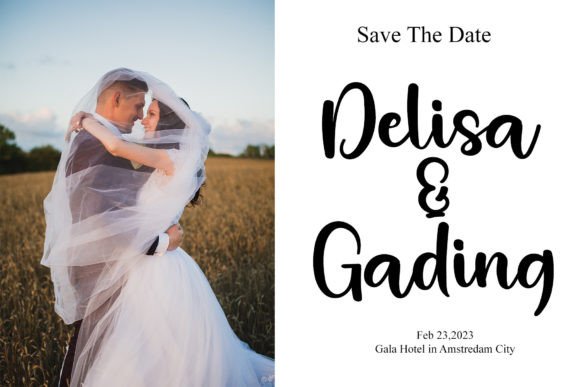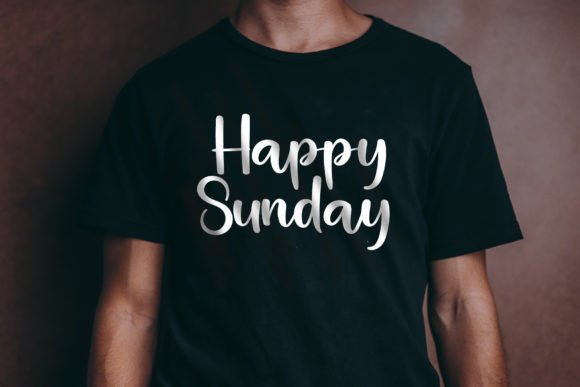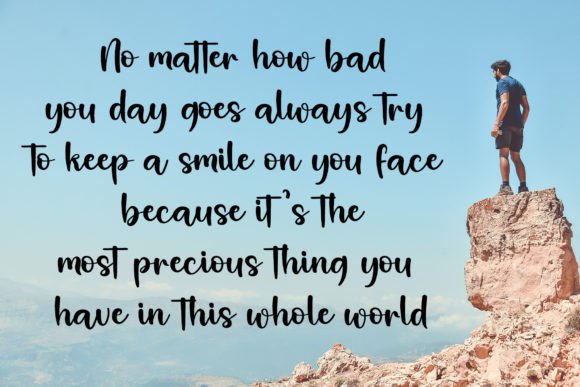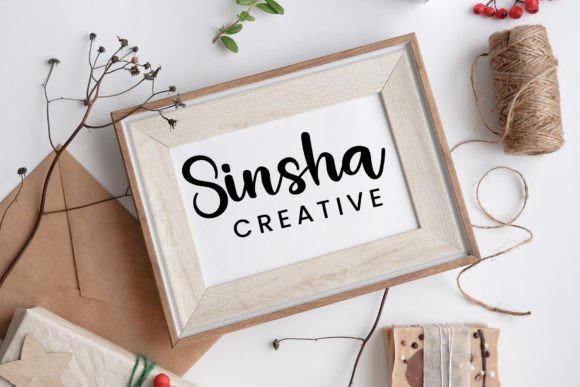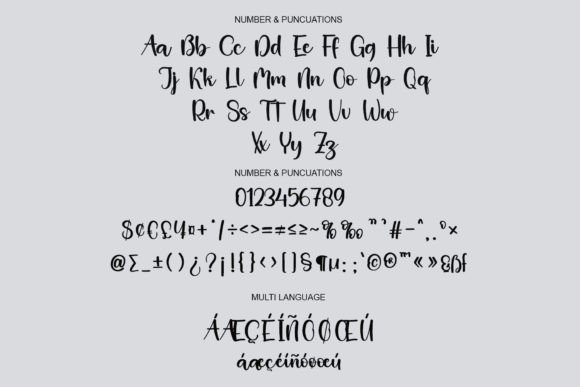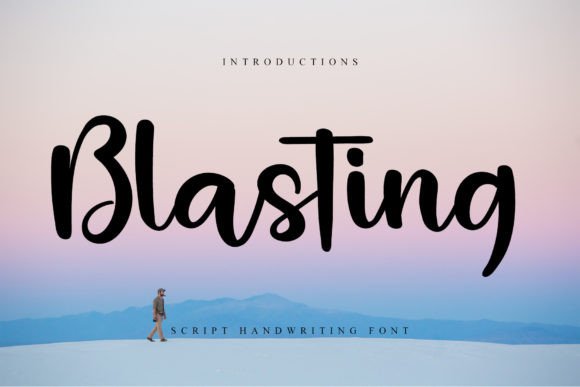
The Blasting Font: A Simple yet Powerful Design Companion
Have you ever been in the middle of a design project, and suddenly, you just can’t seem to find the right font? I recall a particularly frustrating experience when I was working on a greeting card design for a client’s birthday. The design was almost complete, but the font I was using just wasn’t cutting it. The client wanted something simple, yet elegant, and I was stuck. That’s when I stumbled upon the Blasting font, and it completely transformed my design.
A Personal Review of Blasting Font
I’m excited to share my honest review of the Blasting font, and I’ll be covering what I love about it, as well as some minor quirks I’ve encountered.
What I Love About Blasting Font
• ✨ Simple and handwritten: The Blasting font has a beautiful, effortless feel to it that’s perfect for adding a personal touch to your designs.
• ✅ Versatile: This font can be used for a wide range of projects, from greeting cards to headlines, and even body text.
• 🎨 Natural feel: The Blasting font has a unique, organic quality that gives your designs a friendly, approachable vibe.
While the Blasting font is an excellent choice for many projects, there are a few minor quirks to be aware of:
• ⚠️ Limited character set: The Blasting font might not have all the characters or glyphs you need for more complex designs.
• 🤔 Not ideal for body text: While the font is beautiful, it’s not the best choice for long blocks of body text due to its handwritten nature.
The Designer Inspiration Behind Blasting Font
The Blasting font was designed with simplicity and versatility in mind. The creator aimed to craft a font that would be easy to read and beautiful to look at, with a natural feel that’s perfect for a wide range of design projects. Although the designer’s background is unclear, it’s evident that they drew inspiration from classic handwritten fonts and infused them with a modern twist.
Q: What type of projects is the Blasting font best suited for?
A: The Blasting font is perfect for greeting cards, headlines, posters, and any design project that requires a simple, yet elegant font.
Q: Is the Blasting font available in different styles or weights?